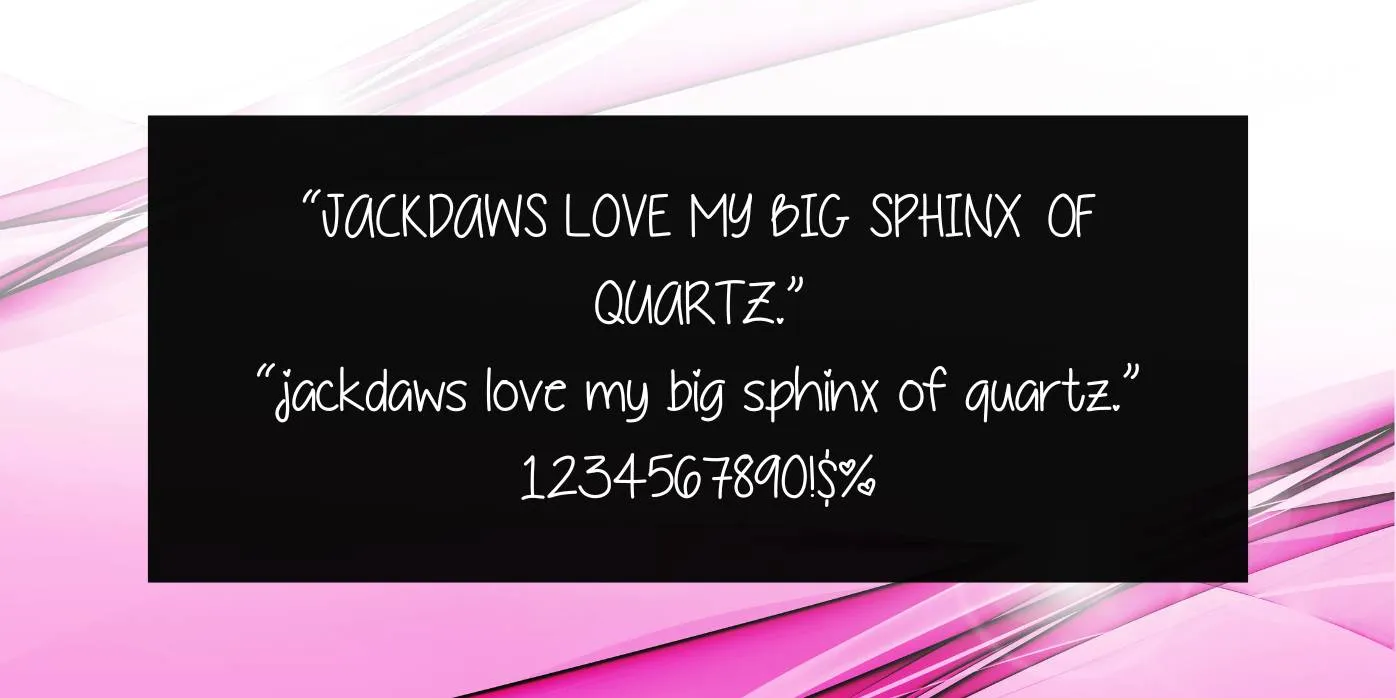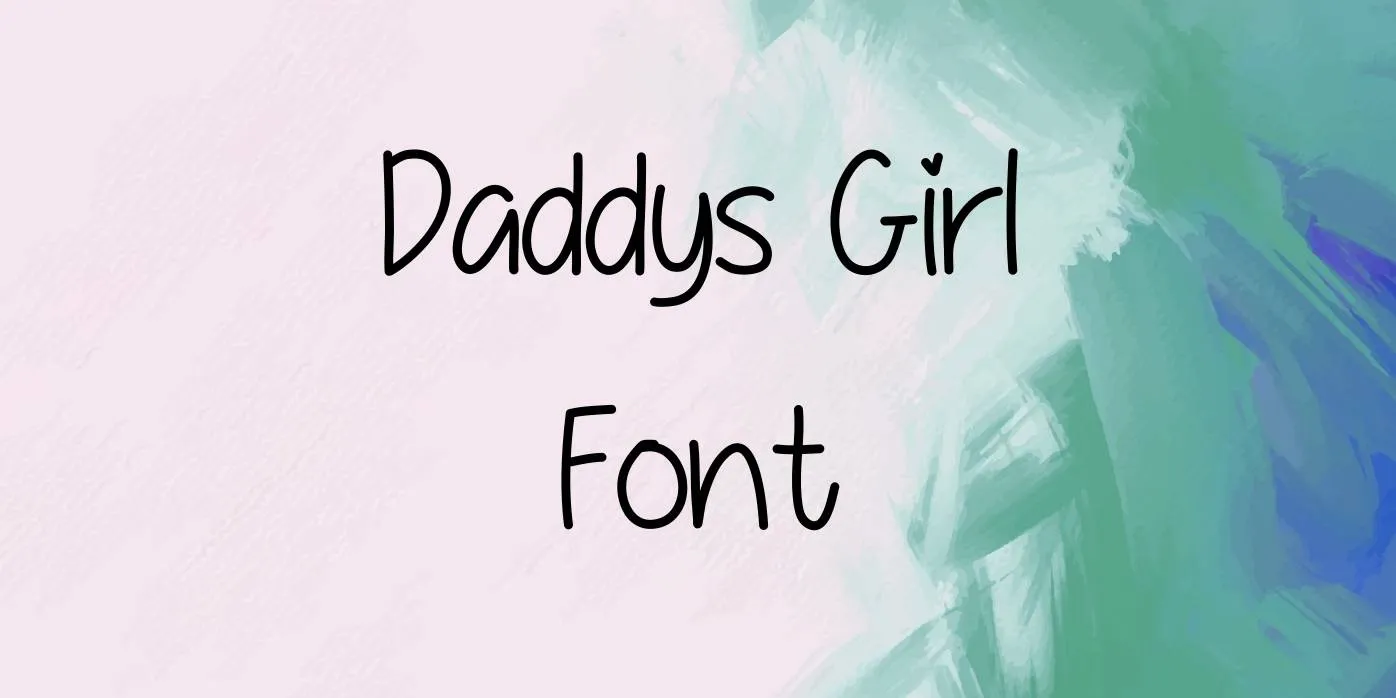
Daddys Girl Font
Today we introducing an amazing texture named Daddys Girl Font that was designed by Vanessa Bays. This is a handwritten type of texture that has thin, stylish, and amazing characters. There are so many other fonts to be paired with this typeface. But I suggest the shiny flakes font for pairing with this typeface.